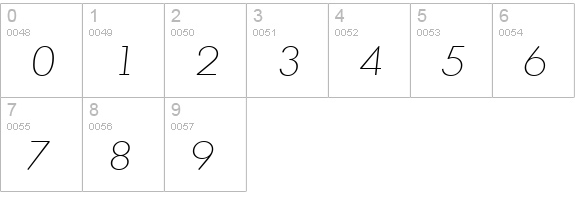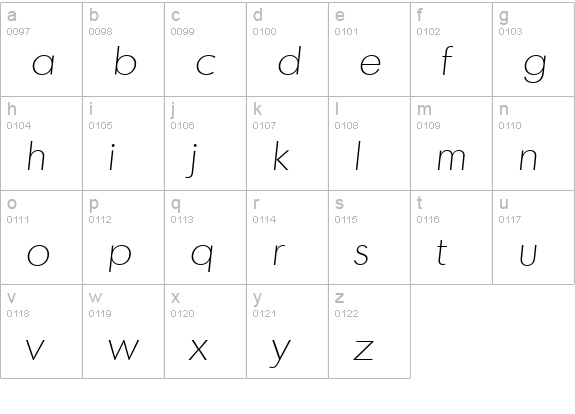
MontrealSerial-Xlight-Italic is a distinctive, italic variant in the MontrealSerial typeface family \xE2\x80\x94 well suited to design and typography projects.
MontrealSerial-Xlight-Italic is a sleek and elegant typeface that exudes sophistication and modernity. With its delicate curves and subtle slant, this font is perfect for adding a touch of finesse to any design project. Whether you're creating a stylish logo, designing an eye-catching poster, or crafting elegant invitations, MontrealSerial-Xlight-Italic is sure to make a statement. The best part? MontrealSerial-Xlight-Italic is available for free download at FontsMarket.com. Simply visit the website to access this beautiful font and elevate your designs with its unique flair. Don't miss out on the opportunity to enhance your creative projects with the timeless charm of MontrealSerial-Xlight-Italic.